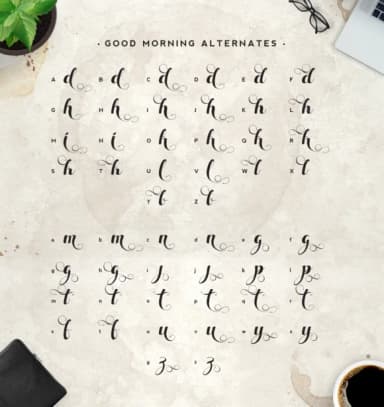
Good Morning Font by SNK is a flowing handwritten script that brings genuine character and personality to contemporary designs seeking an approachable, human touch. The graceful letterforms capture that relaxed confidence of morning optimism and fresh inspiration, making it equally at home in intimate creative work and polished commercial applications. Its connected style flows naturally across the page, creating a visual rhythm that feels both authentic and refined.
This typeface excels for wedding invitation suites where couples want personal warmth alongside elegance, custom greeting card designs that demand individual personality, and boutique product packaging where authentic handwriting becomes a selling point rather than a design afterthought. The script also works beautifully for personalized branding projects, hand-lettered social media headers and lifestyle graphics, craft signage that draws customers into boutique spaces, and custom vinyl applications for personal home decor. The smooth letterwork maintains excellent legibility across both print and digital formats, ensuring your message lands clearly regardless of medium while preserving the handwritten quality that captures reader attention and builds connection.
Good Morning Font delivers the warmth of authentic handwriting without sacrificing professional polish, making it a go-to choice for designers who want genuine character without compromise. Discover this font on Creative Fabrica and add meaningful personality to your next creative endeavor.
Good Morning Font is a script font that shines as a display or heading face. Pair it with a clean sans-serif or serif font for body text β the contrast creates a clear hierarchy while the two styles stay balanced and easy to read.
Good Morning Font
by SNK